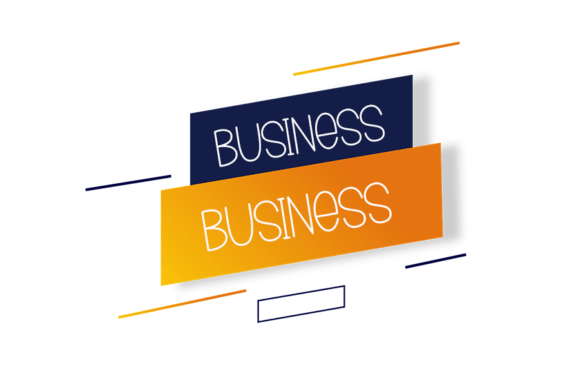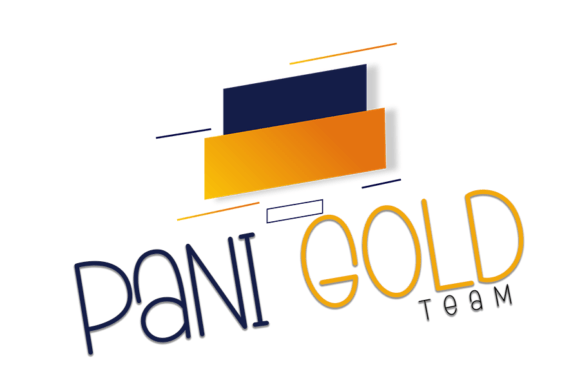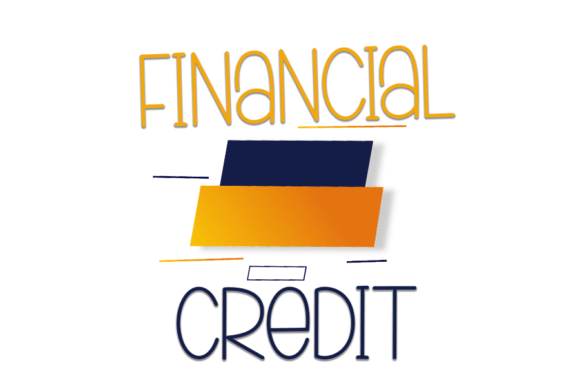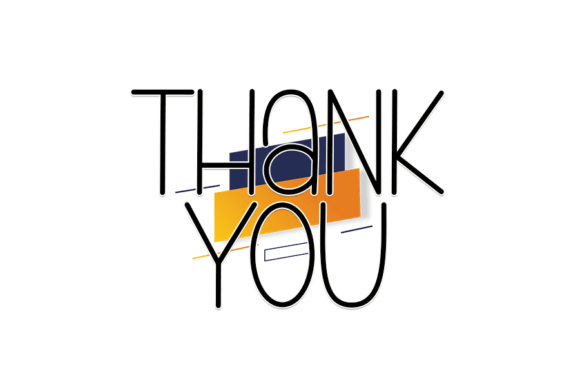
Introduction to Mega Bundle Font
Have you ever been in the middle of a creative project, staring at a blank page or screen, desperately searching for the perfect font to bring your idea to life? That’s where the Mega Bundle Font comes in – a game-changing, modern handwritten sans serif font that’s about to become your new best friend.
As designers, we know how valuable a high-quality design resource can be. The Mega Bundle Font offers a unique blend of style and versatility, making it the perfect addition to any creative project. Whether you’re working on a digital design, crafting a beautiful presentation, or making a heartfelt greeting card, this font has the potential to elevate your work to the next level.
What sets the Mega Bundle Font apart is its sleek, modern design and transparent background, making it a breeze to work with. And the best part? It’s available for free download, making it an absolute must-have for any designer looking to take their work to the next level.
Key Features of Mega Bundle Font
- Comprehensive collection of high-quality fonts, ideal for various creative projects and design resources
- Transparent background option available for seamless integration into various design elements
- High-resolution fonts (up to 300 DPI) for crisp and clear display in various design applications
- Extensive library of fonts, perfect for designers seeking a unique and creative design resource
Honest Review: Mega Bundle Font
As a designer, I’m always on the lookout for high-quality design resources to elevate my creative projects. The Mega Bundle Font caught my attention, and I decided to give it a try.
- ✨ Huge collection of fonts: With over 10,000 fonts in the bundle, I was blown away by the sheer variety and diversity of styles.
- ✨ High-quality designs: Each font is meticulously crafted, ensuring a professional finish for any design project.
- ⚠️ No transparent background option: Some fonts may not work well with transparent backgrounds, which could be a limitation for specific design projects.
Overall, I’m impressed with the Mega Bundle Font’s vast collection and high-quality designs. While there are some limitations to consider, I believe it’s a valuable resource for designers looking to add some flair to their creative projects. With some caution and attention to licensing, I’d definitely recommend it.
Experiment with different font styles and combinations to add depth and interest to your designs. Use the Mega Bundle Font in conjunction with other design resources, such as graphics and images, to create visually appealing and engaging content.
The Mega Bundle Font is perfect for a wide range of creative projects, including social media graphics, business presentations, and marketing materials. Its versatility and high-quality design make it an essential resource for designers and non-designers alike.